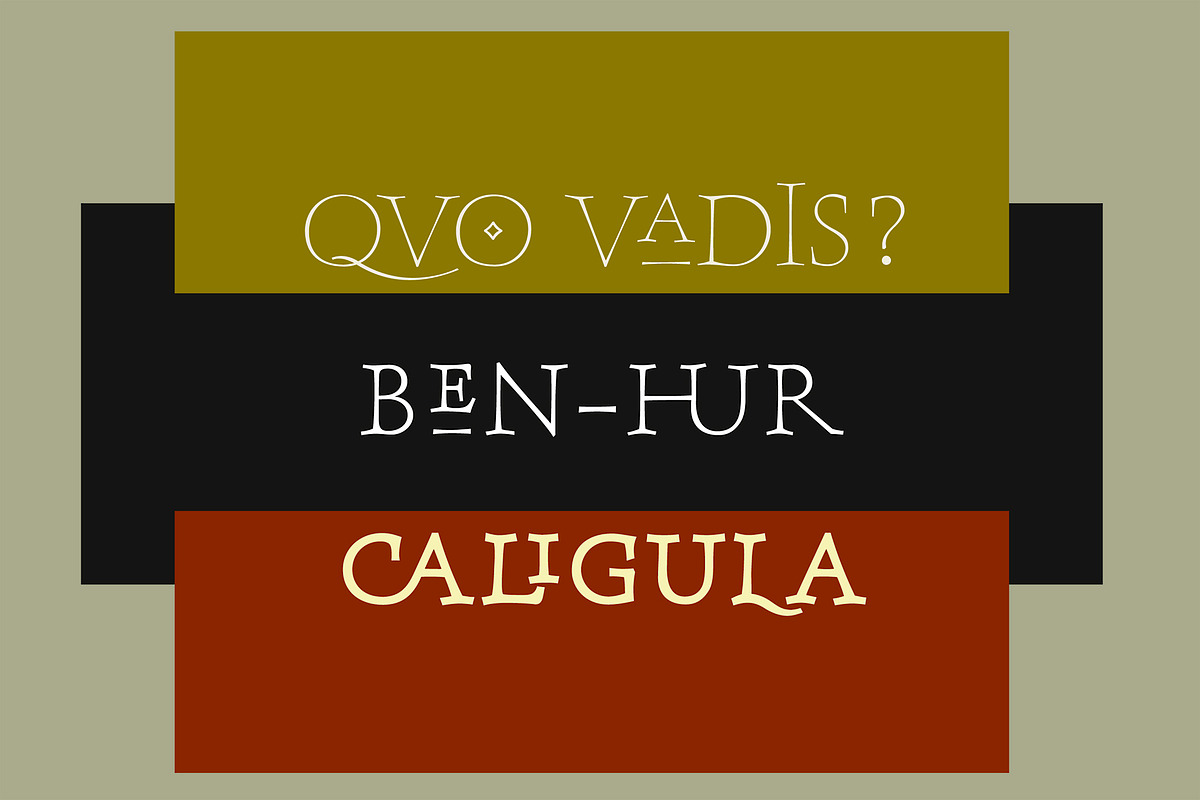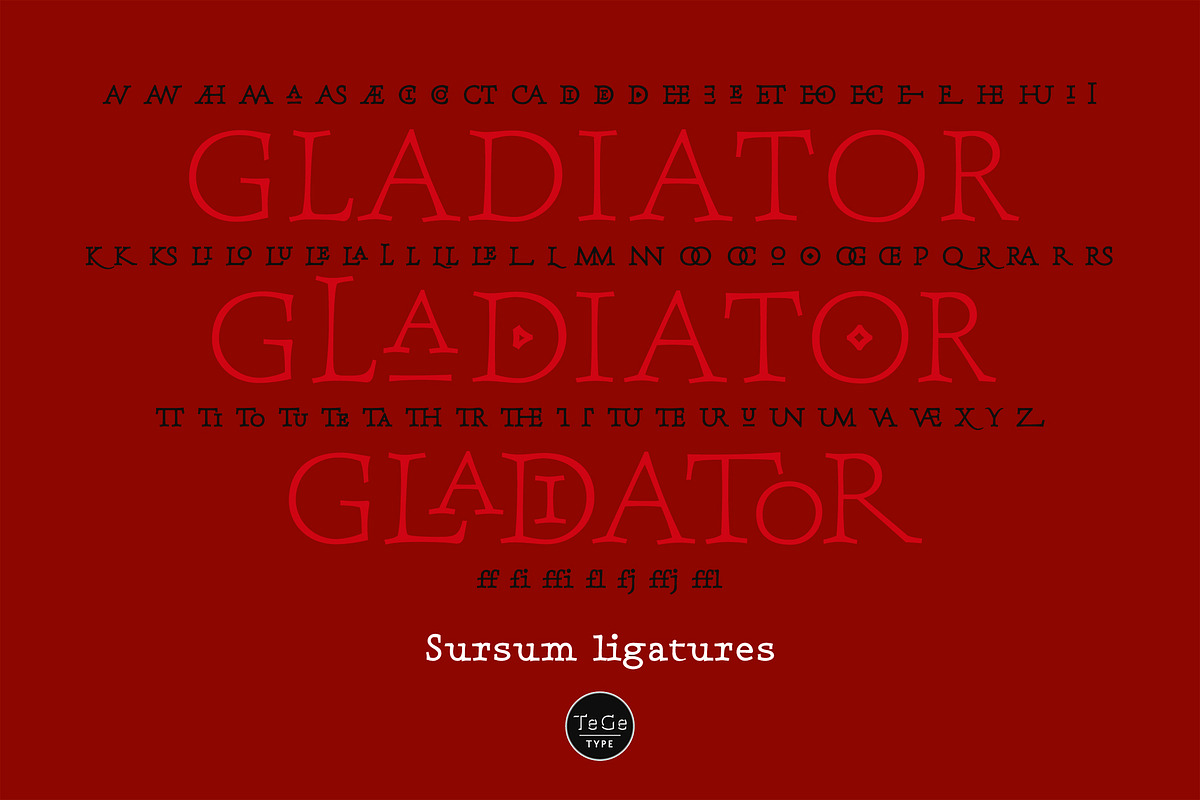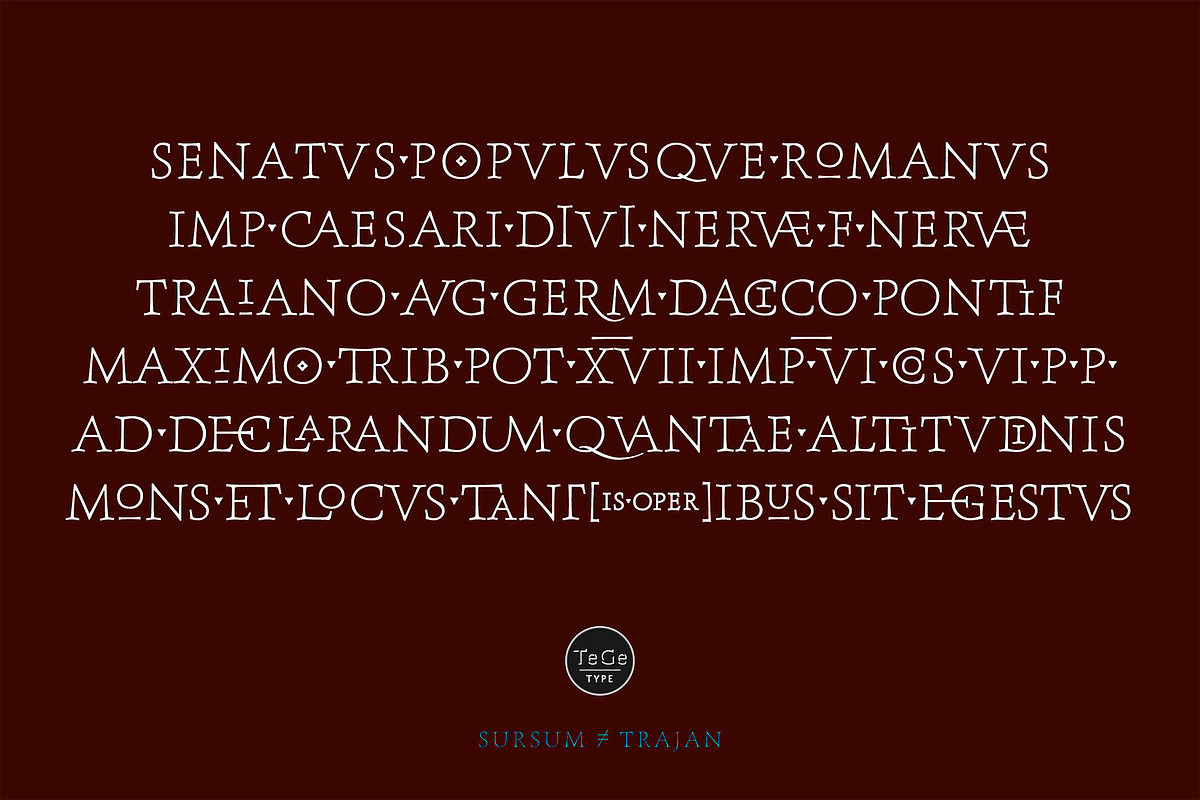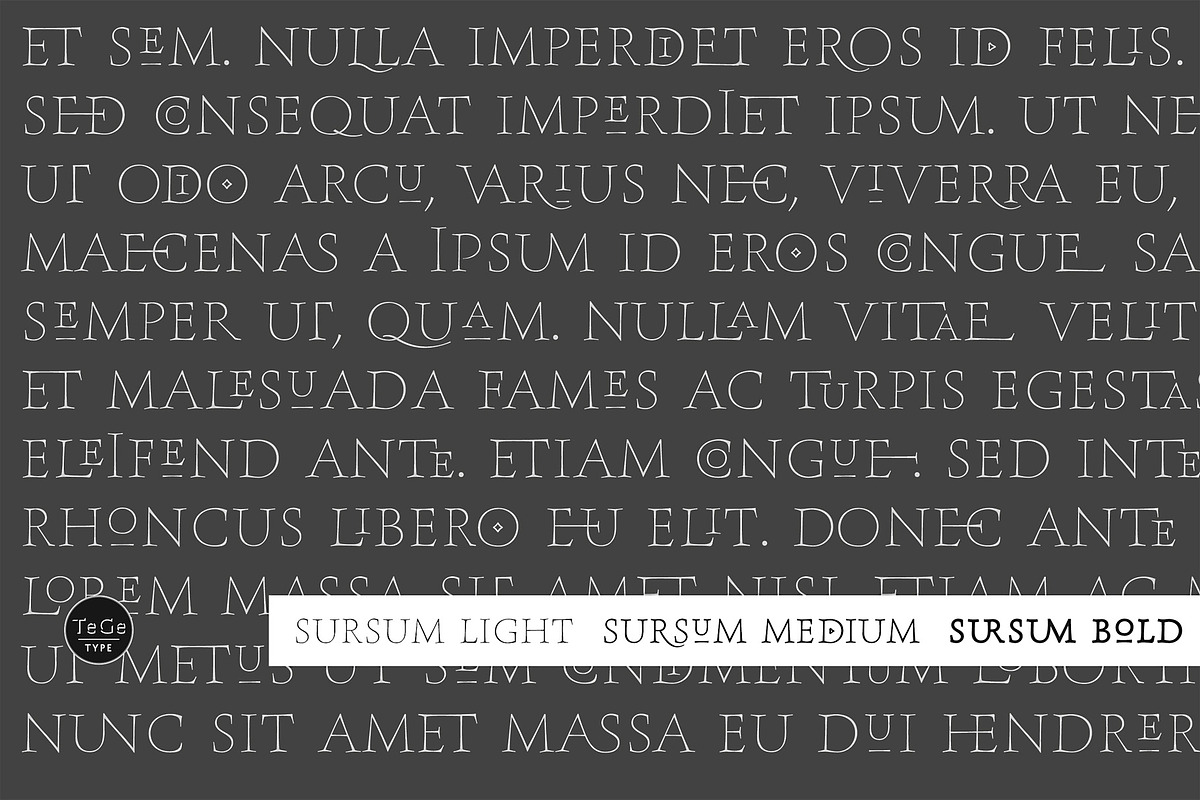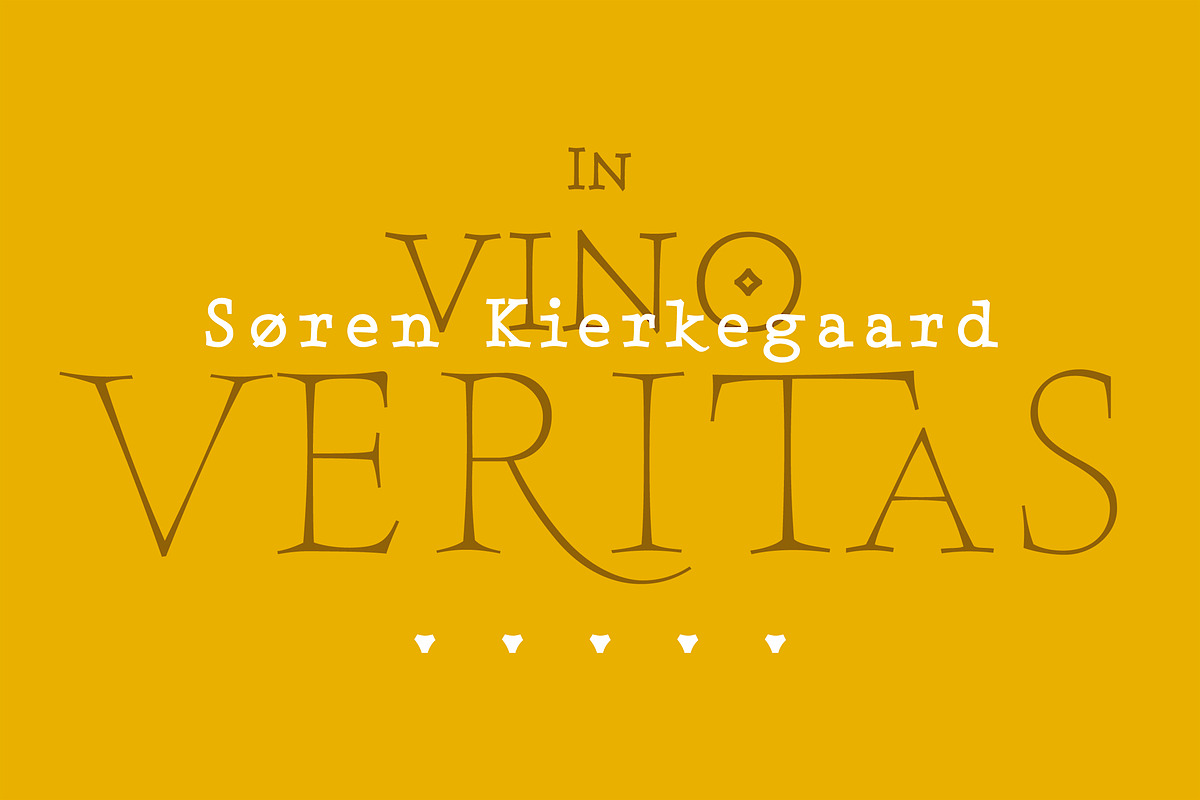
Sursum
Sursum, inspired by the Roman monumental letterform, was designed to provide the possibility to play with the 58 OpenType ligatures and the 25 alternates letters. The Sursum family includes 3 weights, all with the same OpenType features.